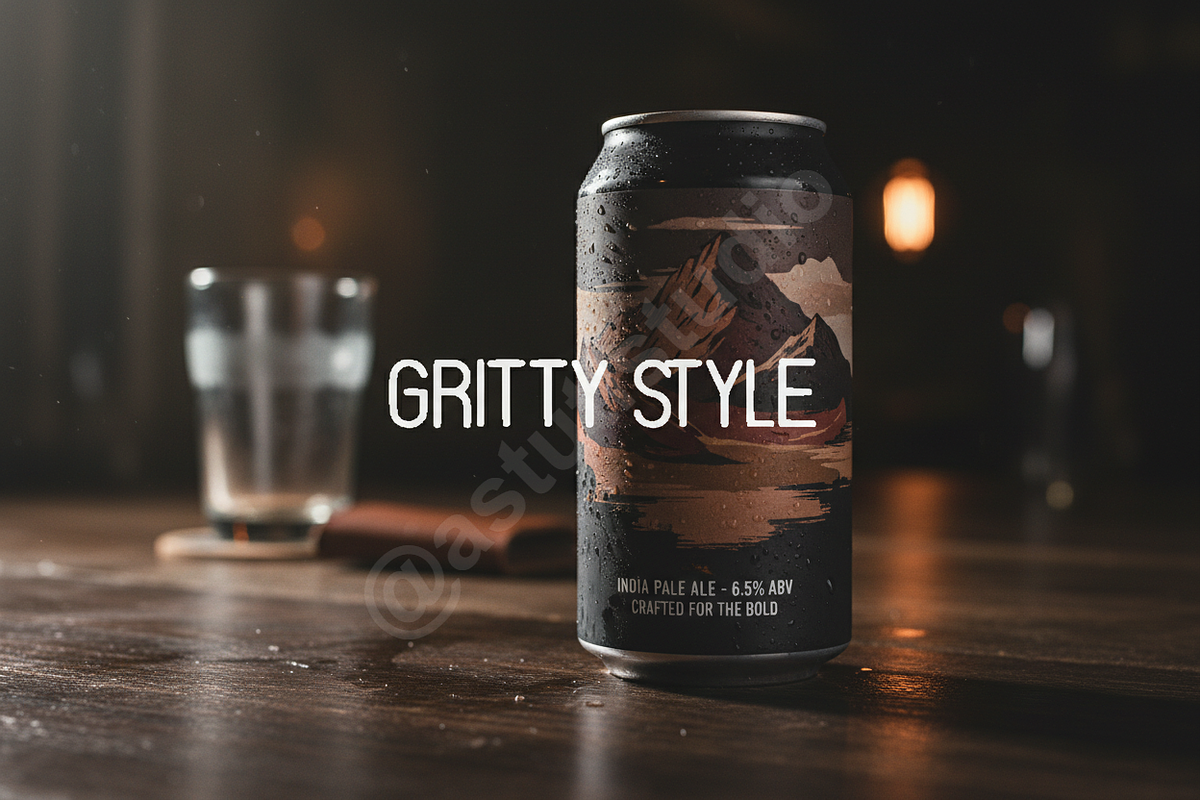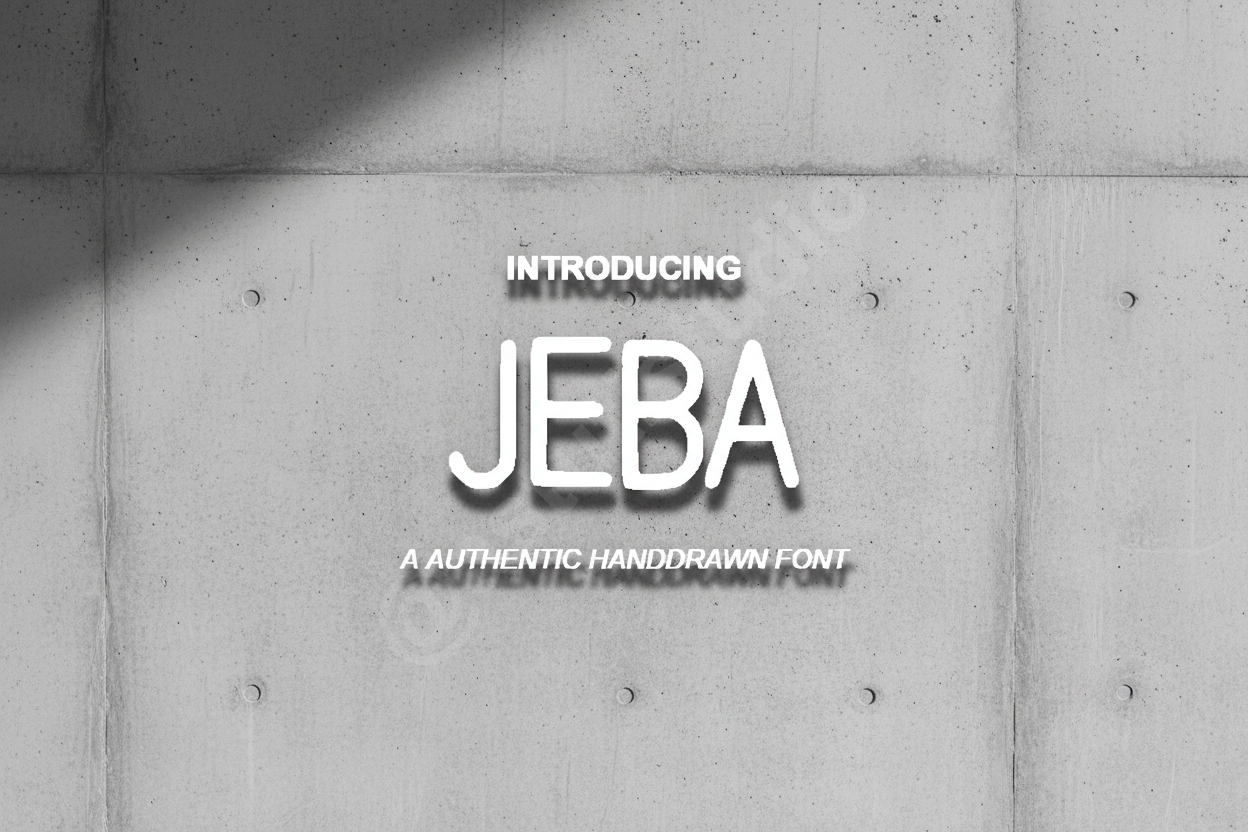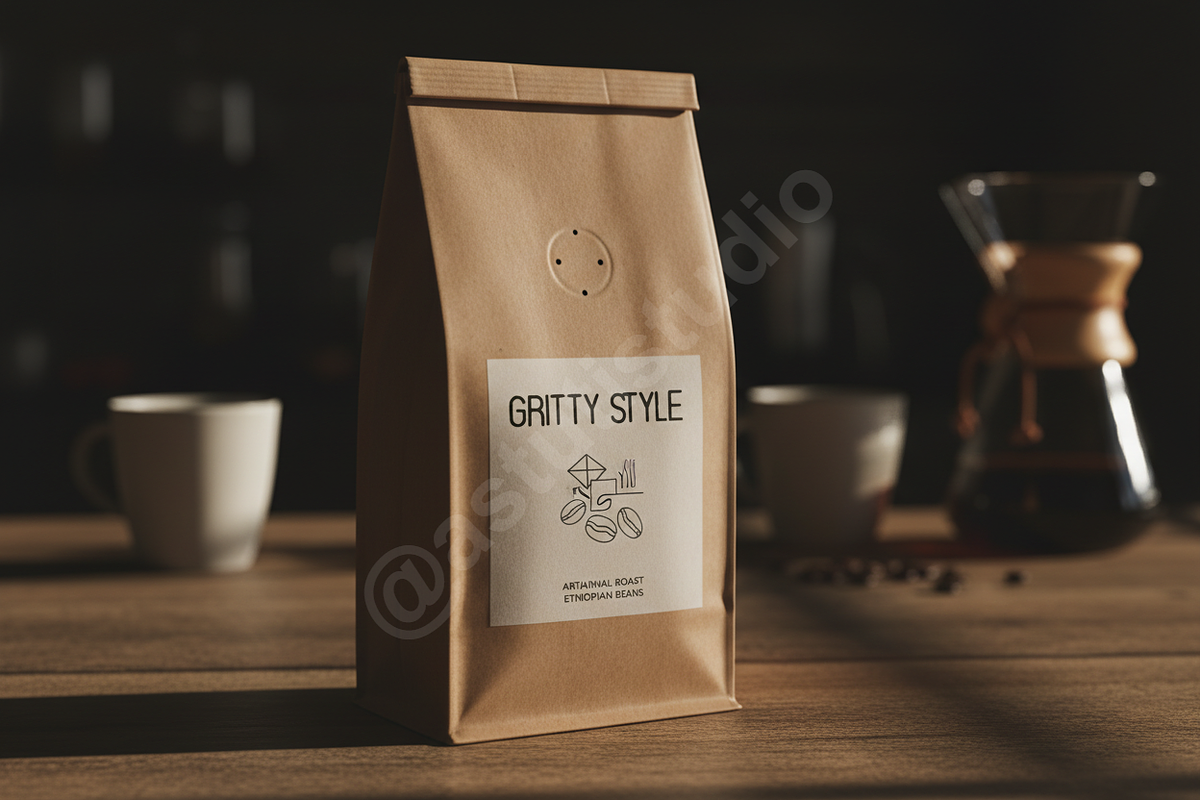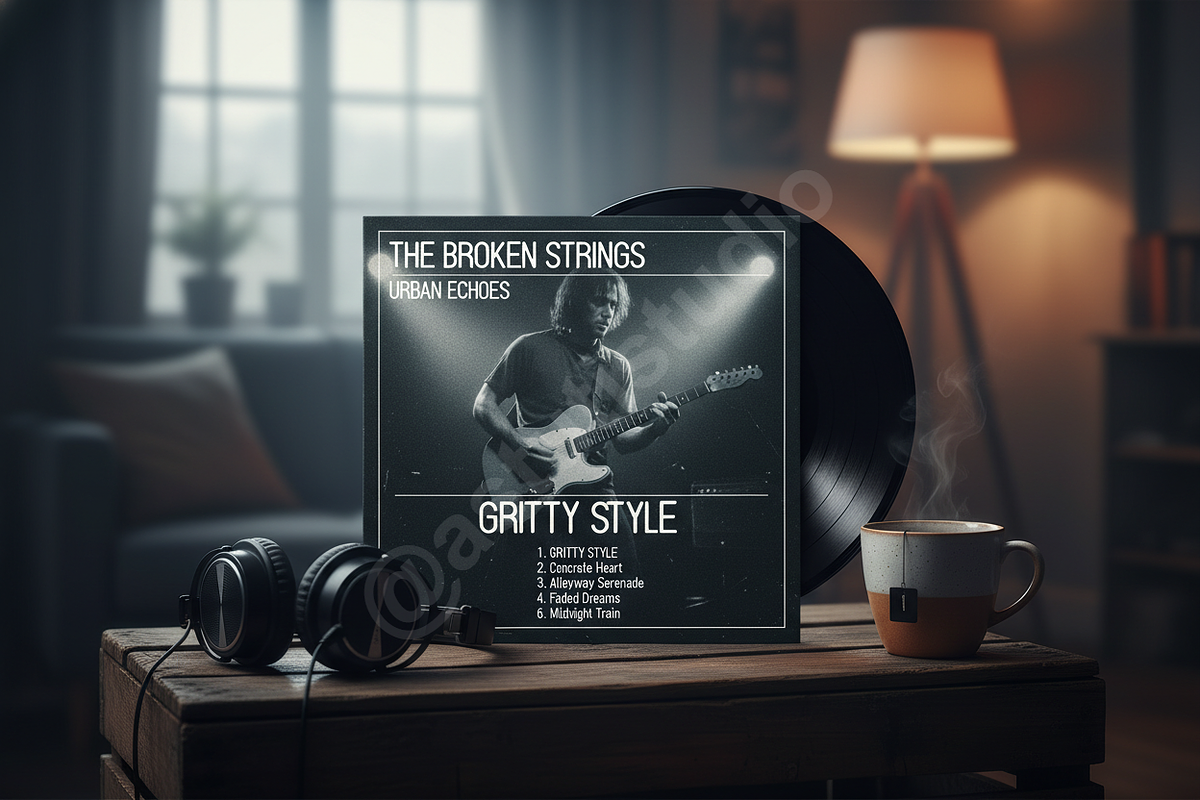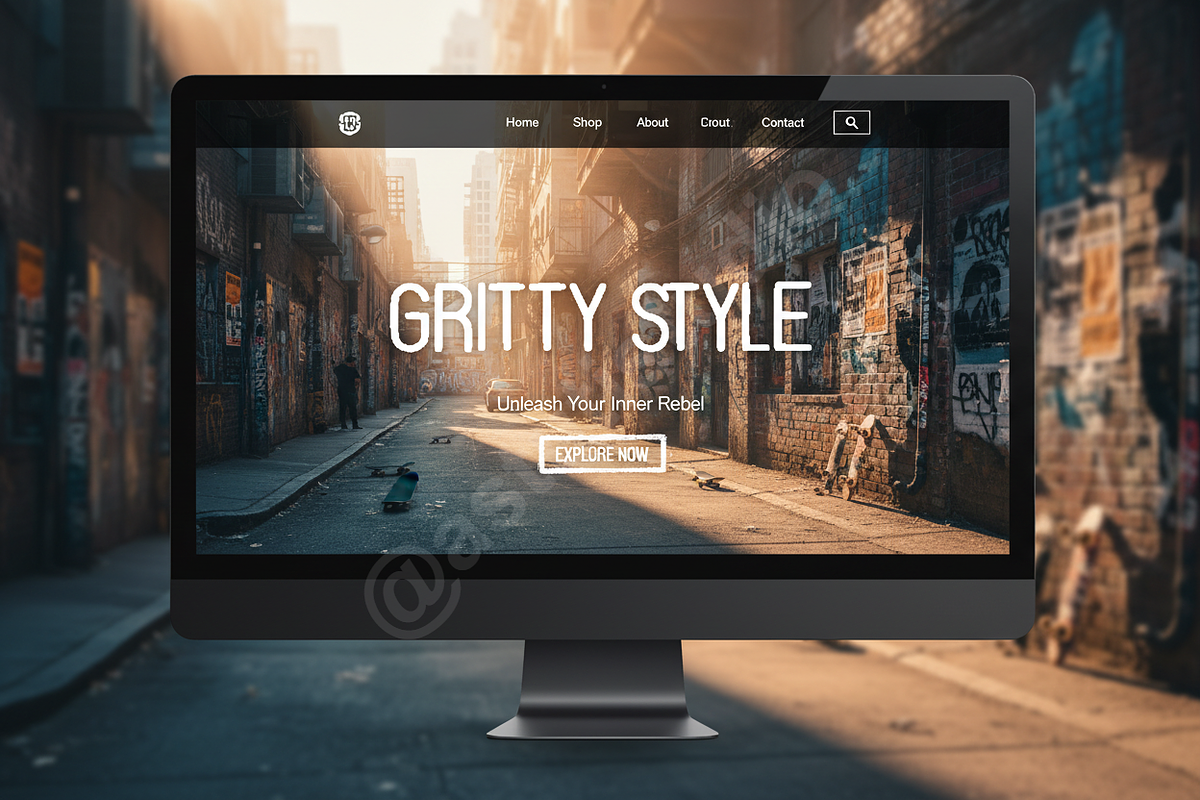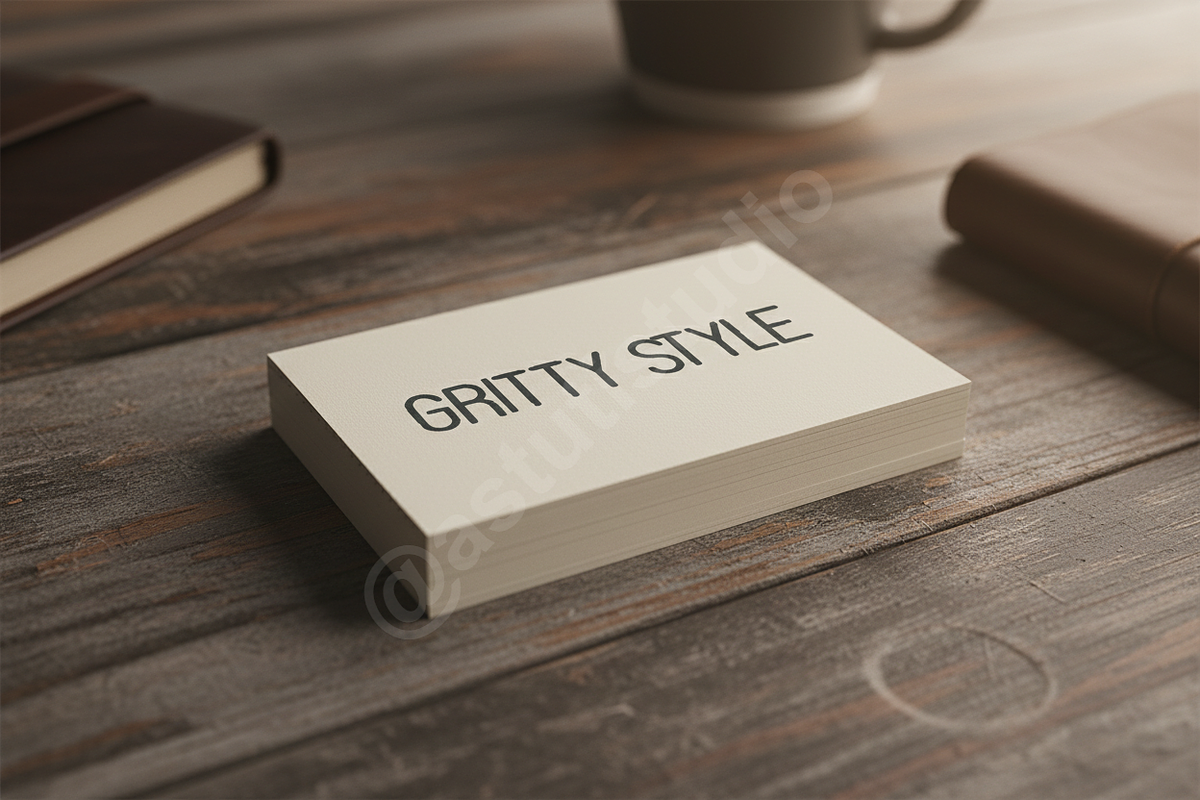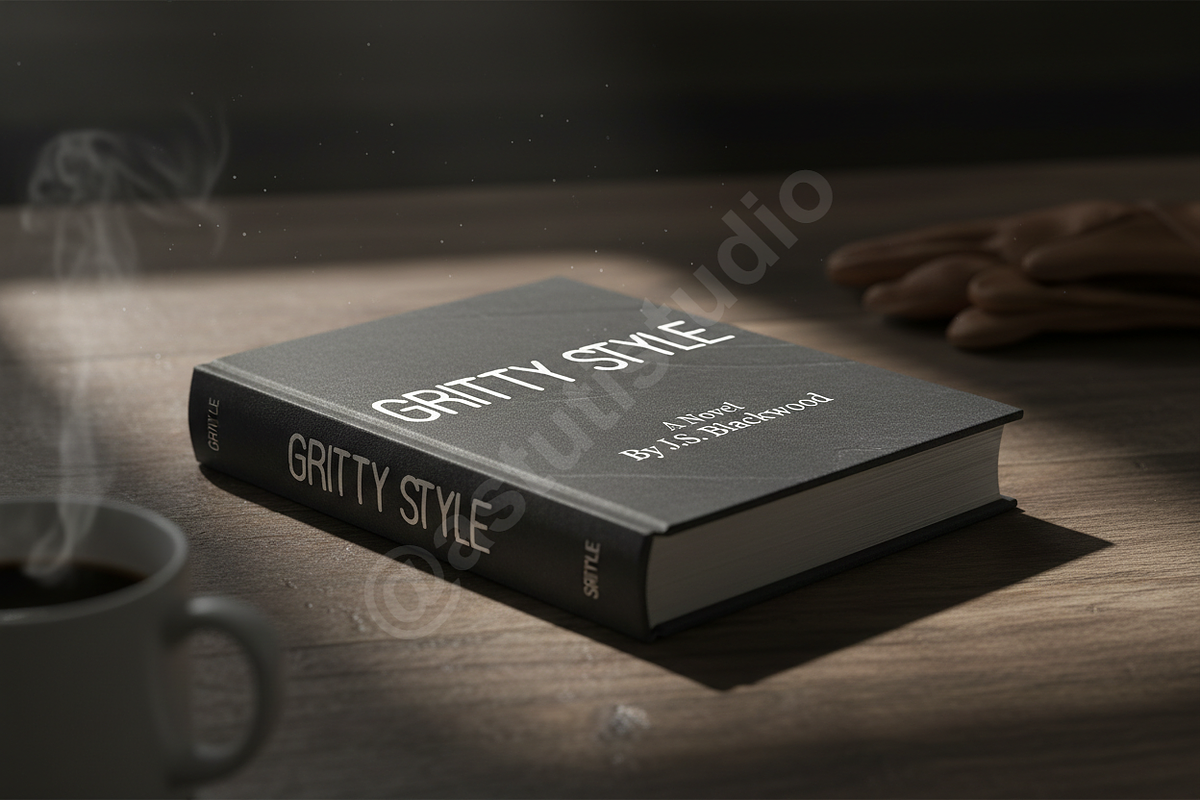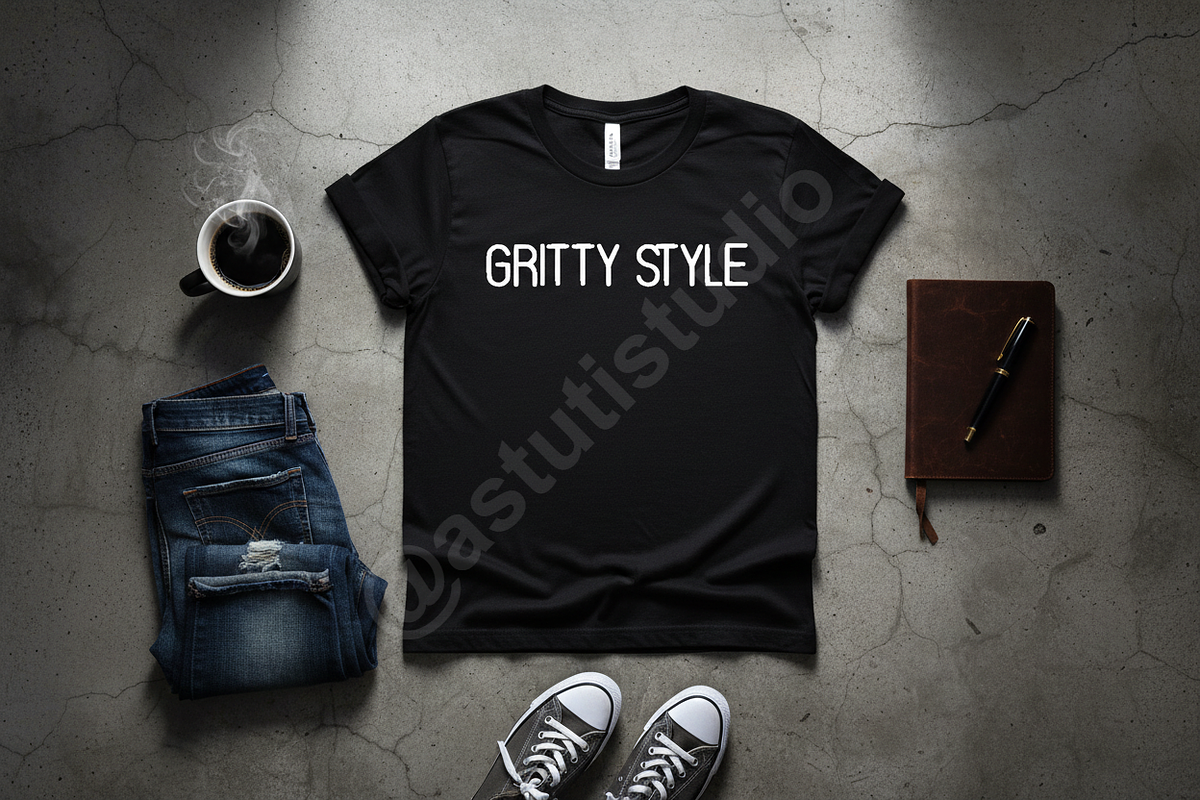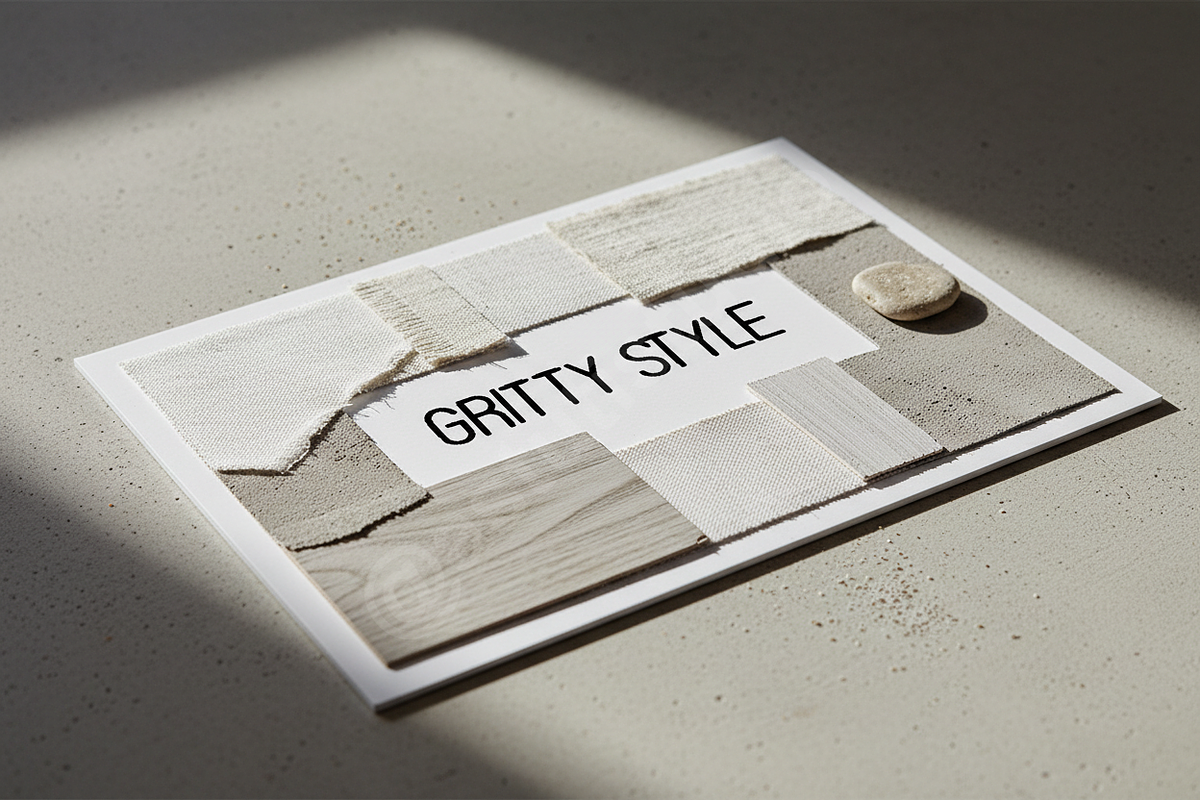
Jeba | Elegant Modern Serif Typeface
Jeba is a premium serif typeface designed with sophistication and high-end aesthetics at its core. Perfectly balanced and visually striking, Jeba is an essential tool for creators looking to elevate luxury branding projects, sophisticated editorial layouts, and premium social media content. Its refined contrast and timeless proportions make it an ideal choice for logos, high-fashion magazines, and minimalist website headers.
- High-contrast serif design for a luxurious feel
- Unique custom ligatures for distinctive typography
- Full multilingual support for global accessibility
- Clean and precise letterforms optimized for both print and digital use
- Versatile proportions suitable for headlines and body text